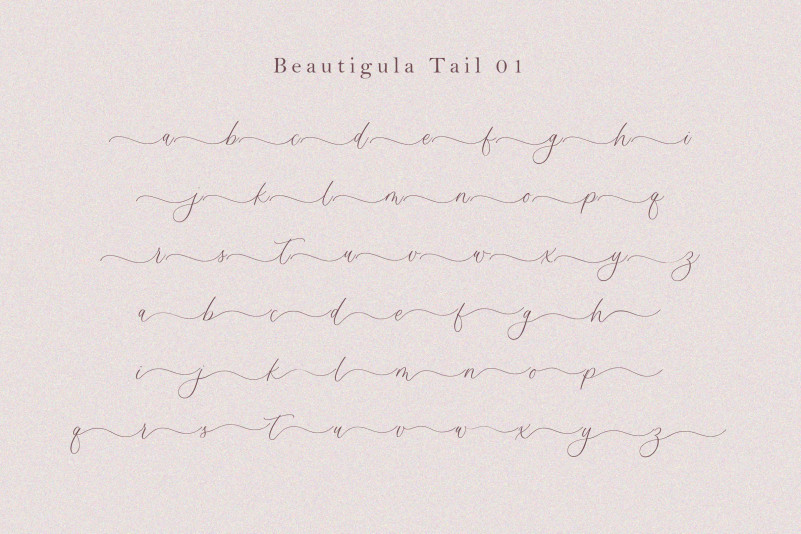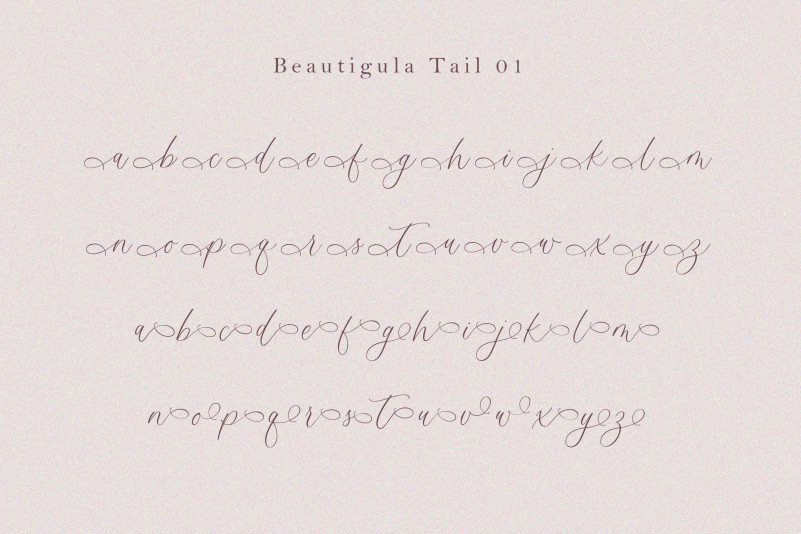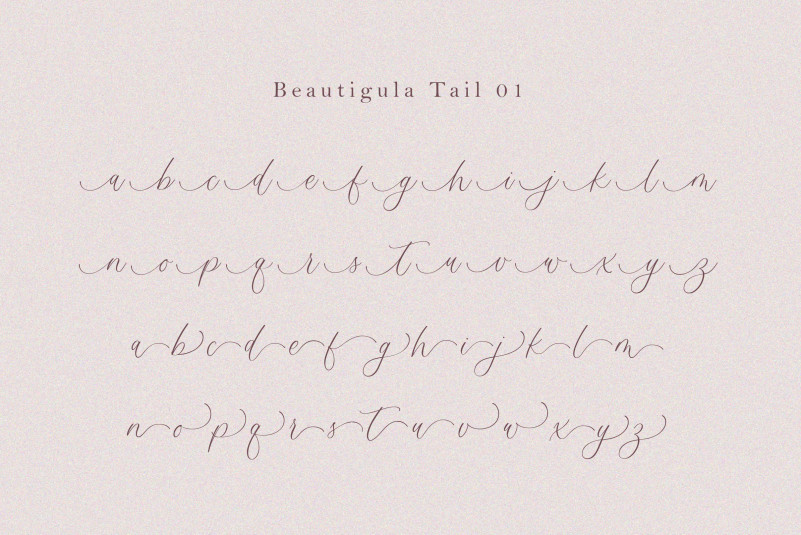
Beautigula Font
Beautigula Script Font has a very elegant and flowing feel to it. It looks great on wedding invitations, thank you cards, quotes, greeting cards, logos, business cards, and any other design that calls for a handwritten touch. It has a varying baseline, smooth lines, gorgeous glyphs, and stunning alternates. This font is PUA encoded which means you can access all glyphs and swashes effortlessly!